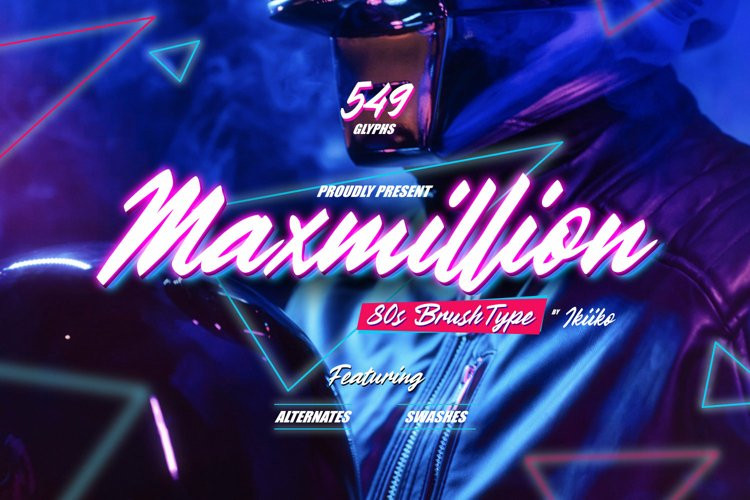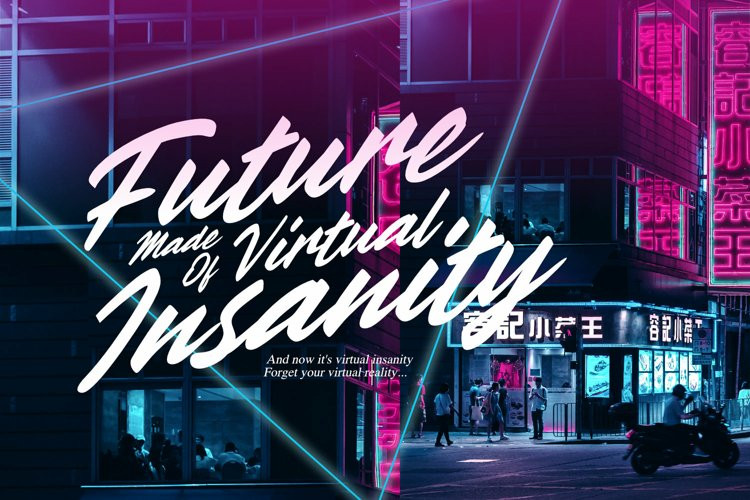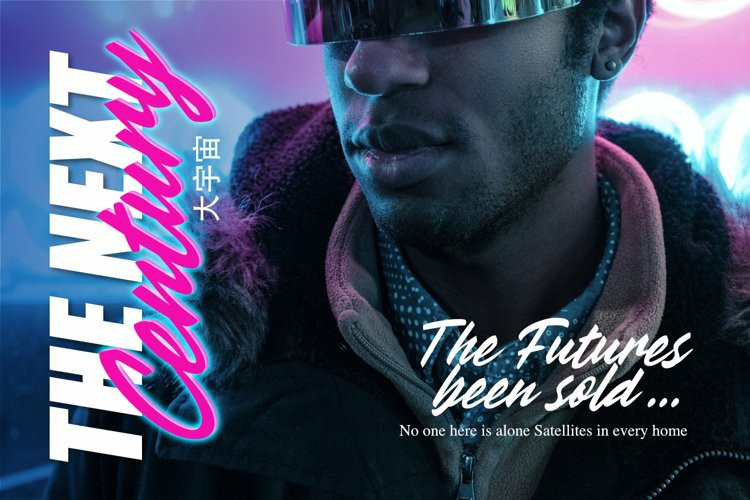
Maxmiliion Font
MaxmiliionProudly present Maxmillion – 80’s brush type, created by ikiikowrk. A expressive handwriting type with a modern and wild shape used 80’s vibes. This type is very suitable for making a posters, t-shirt design, neon sign, party flyer, quotes, or simply as a stylish text overlay to any background image.